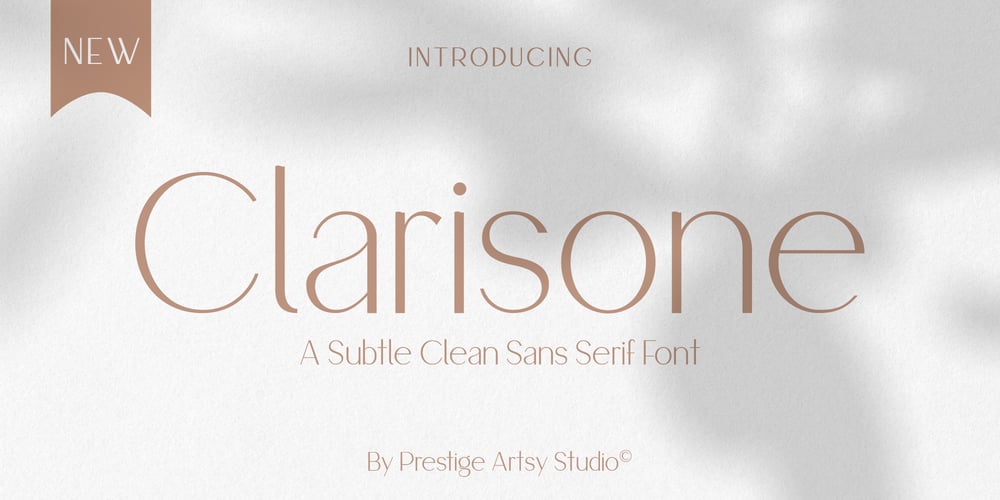
Clarisone Font Family was designed by Zak M and published by Prestige Artsy Studio. Clarisone contains 1 styles and family package options. Clarisone is a delicate yet classy modern sans serif font. Designed specifically for clean projects in mind — perfect for creating word mark logos, monograms, quotes, product packaging, invitations, magazines and more… The simplicity of Clarisone introduces a professional, and modern touch to any of your future projects. With its high class clean smooth curves — Clarisone is the perfect font to have in your design arsenal.